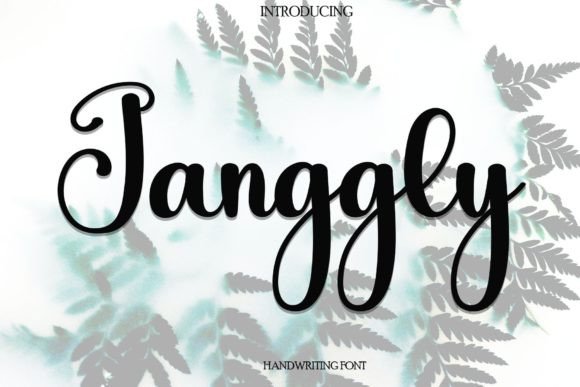
Unleash your creativity with Janggly Font, a captivating script font that dances across your screen, leaving a trail of elegance and charm. Its playful personality is a perfect match for any design idea, transforming your words into a visual spectacle that commands attention.
Embrace the magic of Janggly Font and let your imagination soar. Whether you're crafting eye-catching logos, designing stunning invitations, or creating heartwarming social media posts, this font adds an enchanting touch that captivates your audience. Feel the joy as your designs come alive, imbued with a sense of whimsy and wonder that resonates with every stroke.
Indulge in the limitless possibilities offered by Janggly Font. Let its unique, expressive style inspire your projects and elevate them beyond the ordinary. From whimsical illustrations to stunning branding, there's no limit to what you can achieve with this captivating font by your side.
So, dive into the world of Janggly Font, embrace its playful spirit, and let your creativity take center stage. Experience the joy of creating designs that spark emotions, captivate imaginations, and leave a lasting impression on your audience. Unleash the magic of Janggly Font today and embark on a creative journey that's both enchanting and unforgettable!